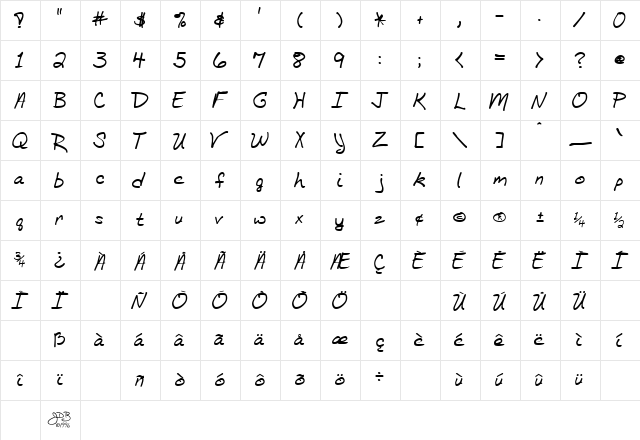
BethHand Regular
Design Context for BethHand Typeface
BethHand flows with the natural rhythm of handwritten lettering, making it ideal for designs that call for warmth and personal expression.